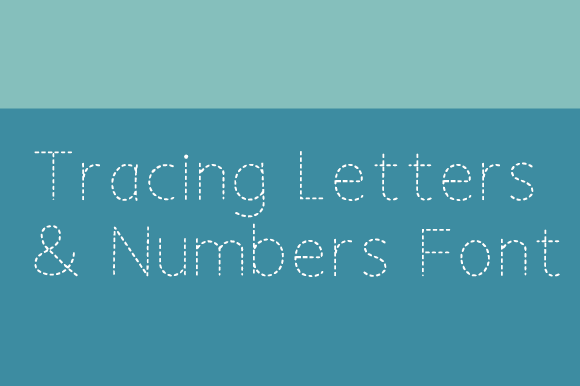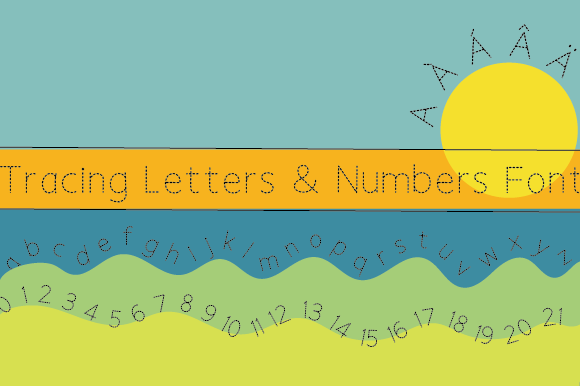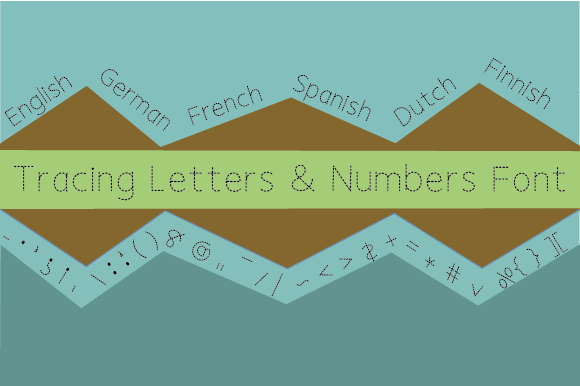
Tracing Letters and Numbers Font
About Tracing Letters and Numbers Font
“Tracing Letters and Numbers” is a fun and practical handwritten font that serves as a valuable tool for kids practicing their writing skills. This font’s natural and unique style makes it exceptionally well-suited for a wide variety of projects, especially those geared towards educational purposes and activities.
The font’s playful and hand-drawn design adds an engaging and approachable quality to your creative work. It is particularly useful for projects that involve teaching, learning, or activities related to letters and numbers. “Tracing Letters and Numbers” can be applied in educational materials, worksheets, flashcards, coloring books, and various other resources designed to aid children in their learning journey.
In the world of design, fonts play a crucial role in conveying information and facilitating comprehension. “Tracing Letters and Numbers” excels in these aspects by offering a handwritten style that is not only fun but also easy for young learners to engage with. Its aesthetics enhance the educational value of your projects, making them enjoyable and effective.
In summary, “Tracing Letters and Numbers” is more than just a font; it’s a fun and practical design tool that can assist children in their writing practice and learning endeavors. Its engaging handwritten style is ideal for educators, parents, and designers seeking to create educational resources that are both enjoyable and effective. Whether you’re designing for the classroom or at home, “Tracing Letters and Numbers” is the font that can help make learning an engaging and rewarding experience for young learners.